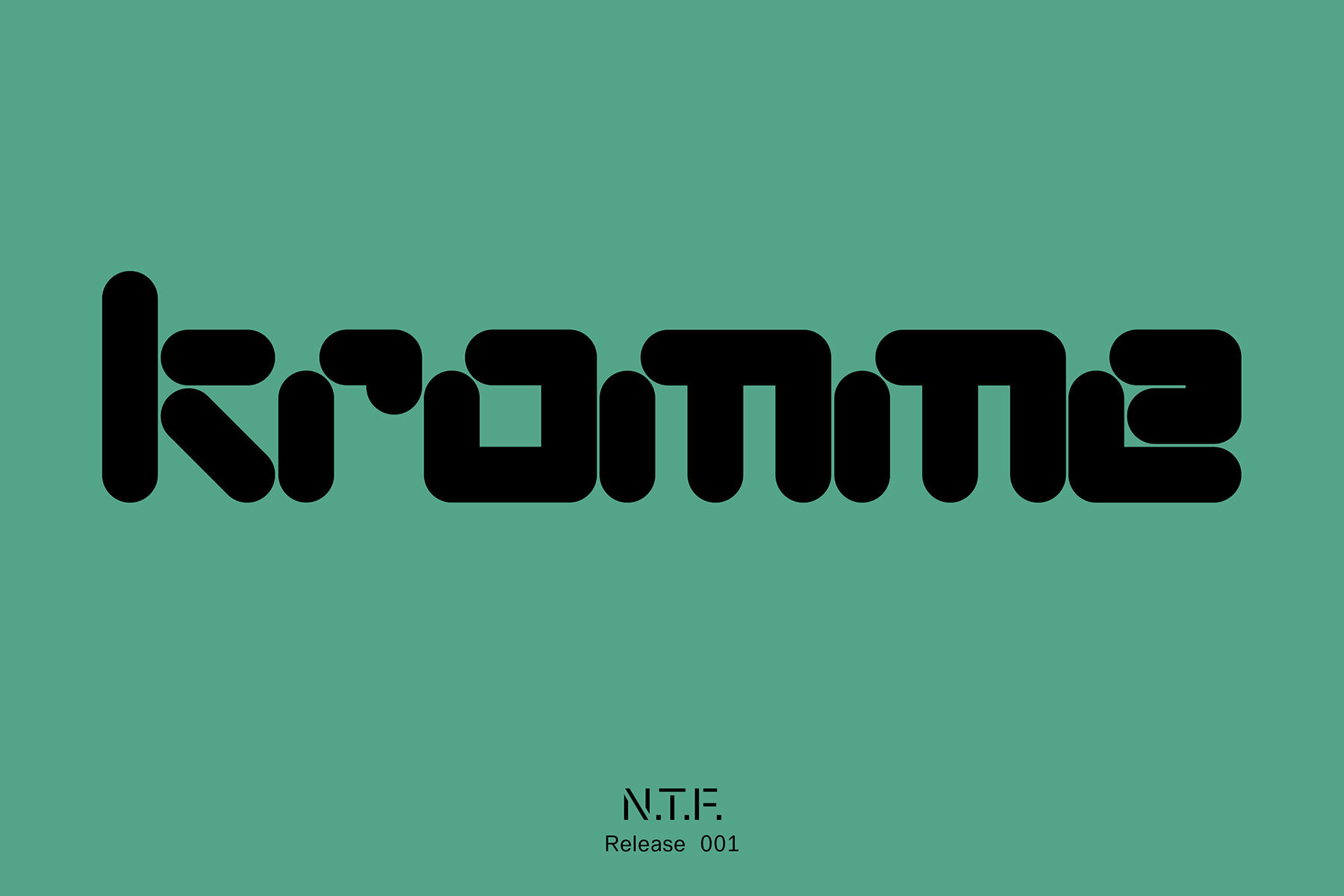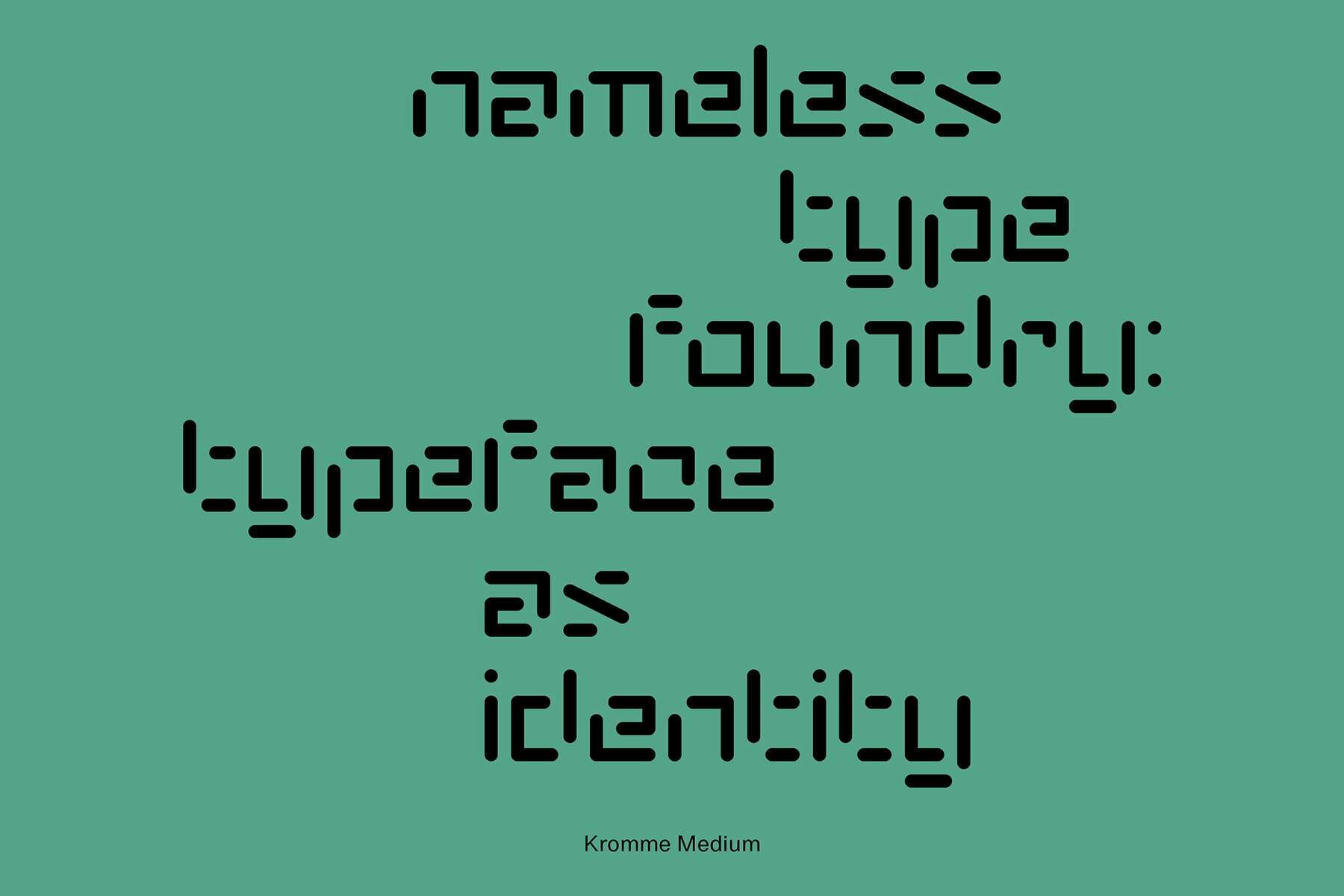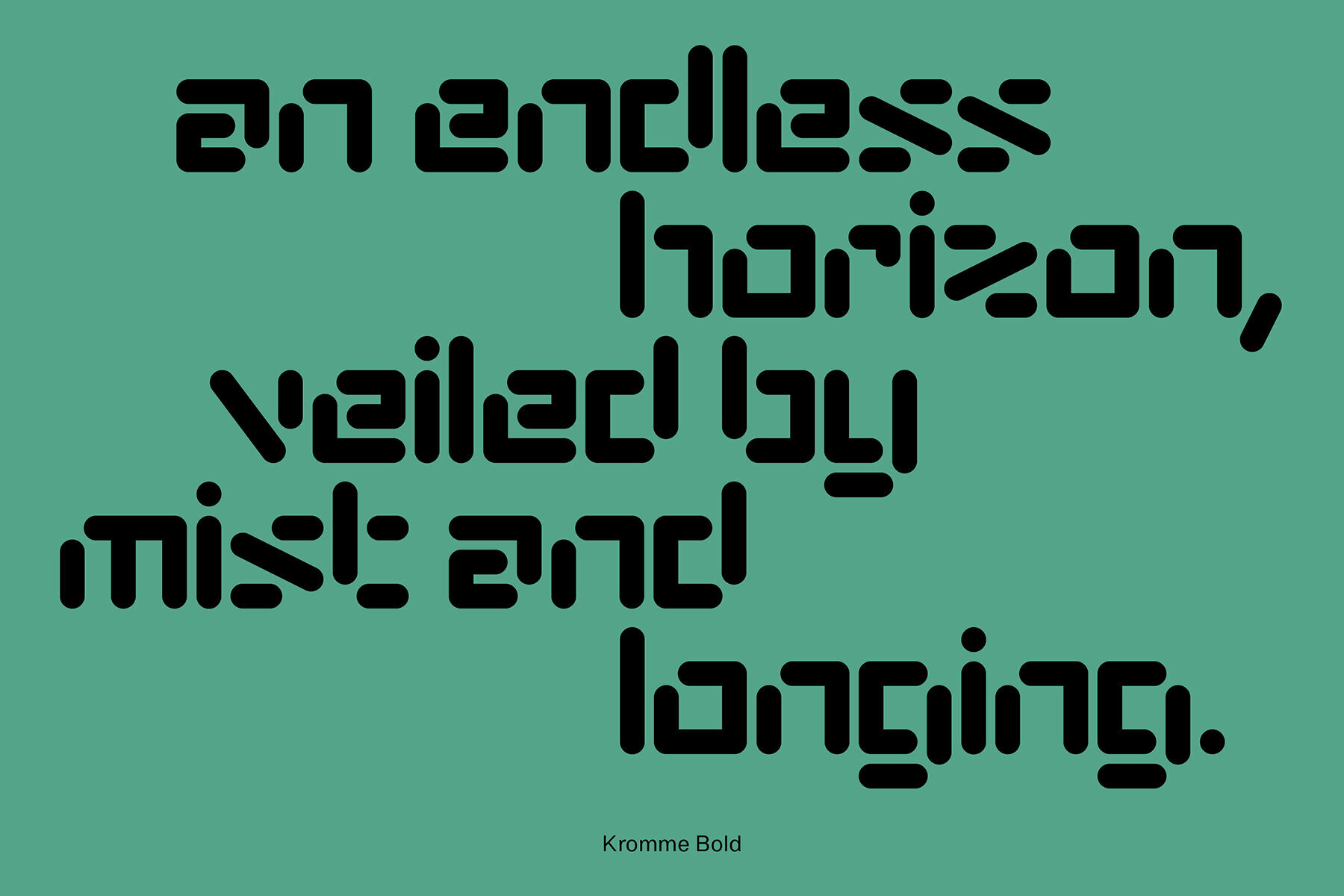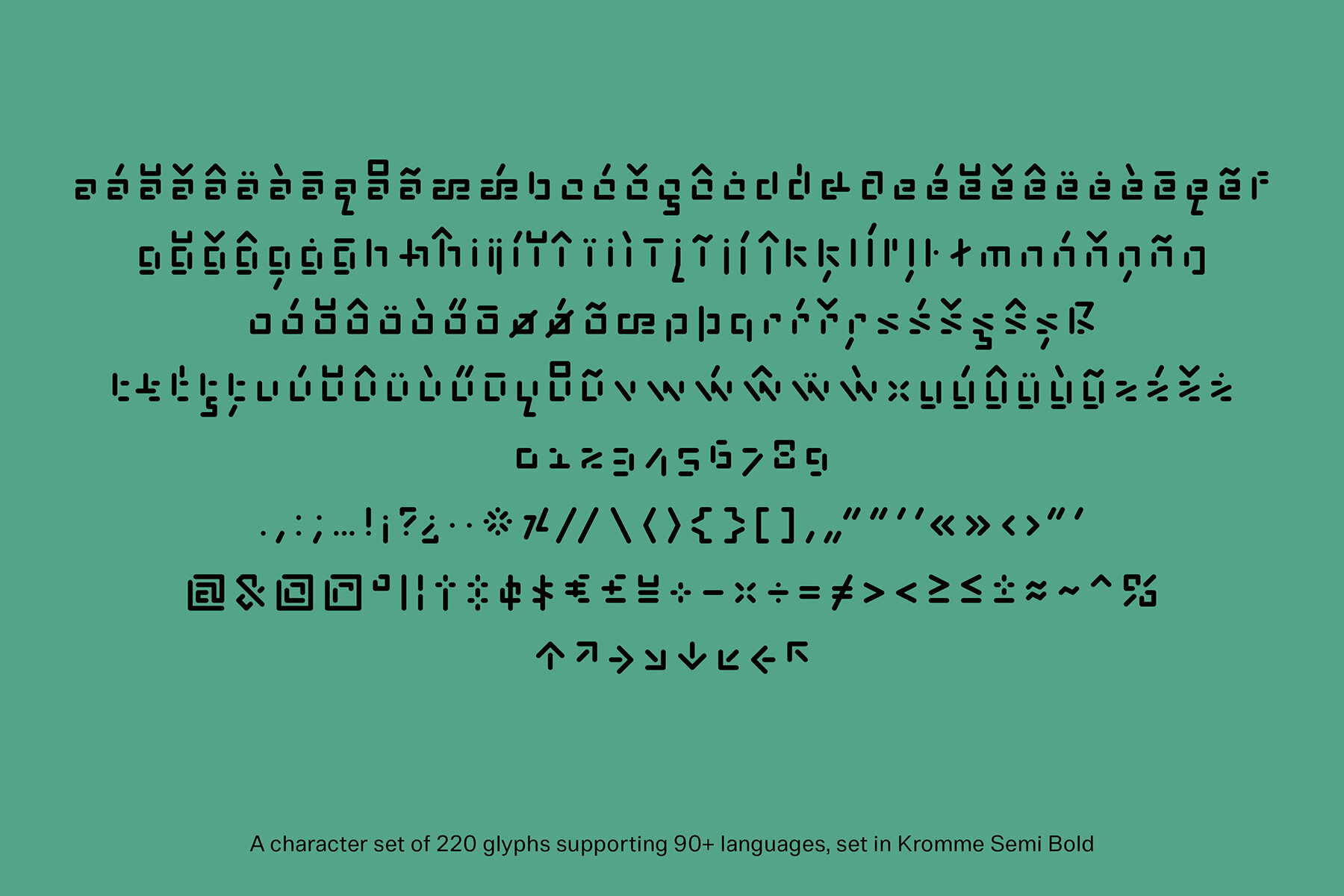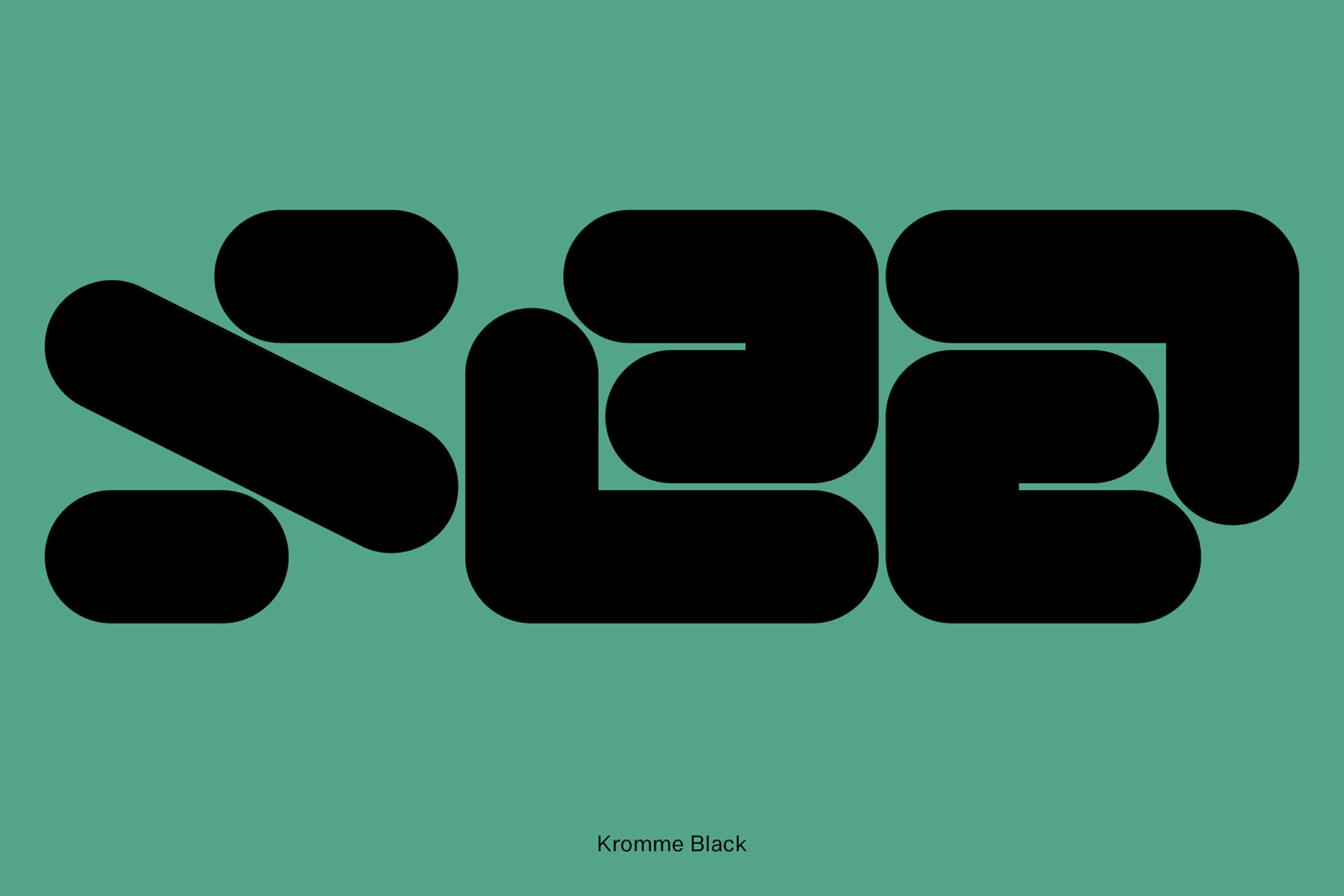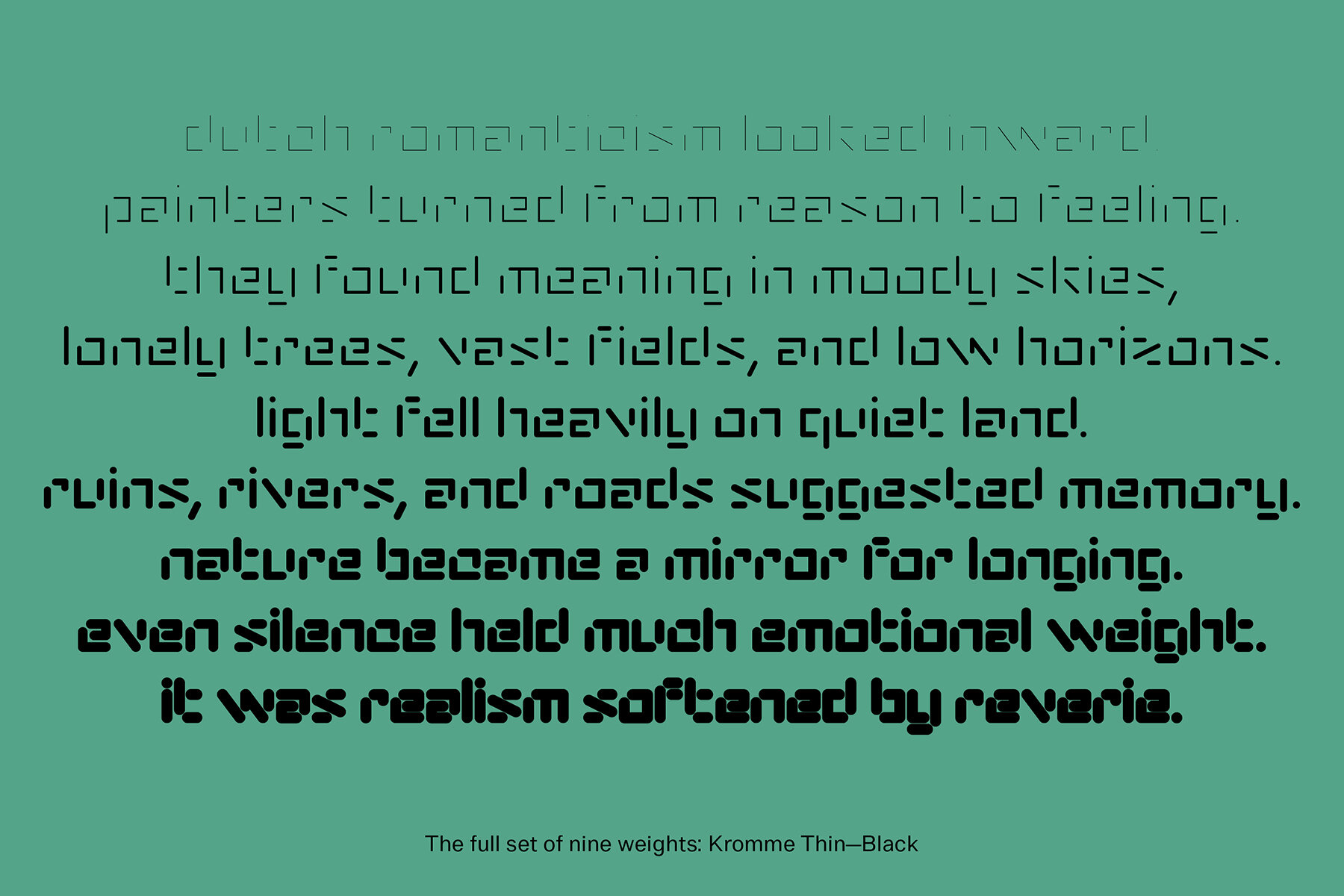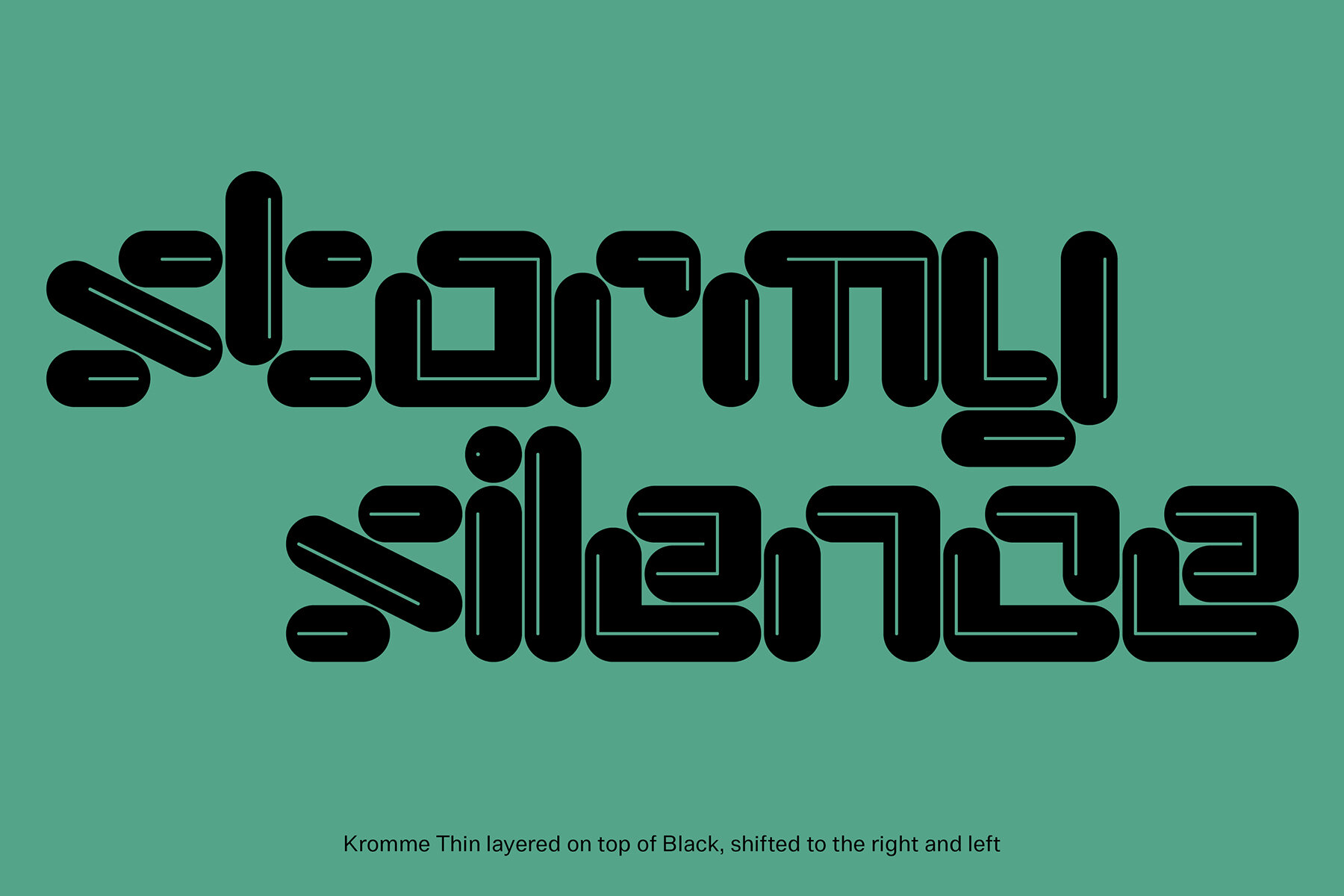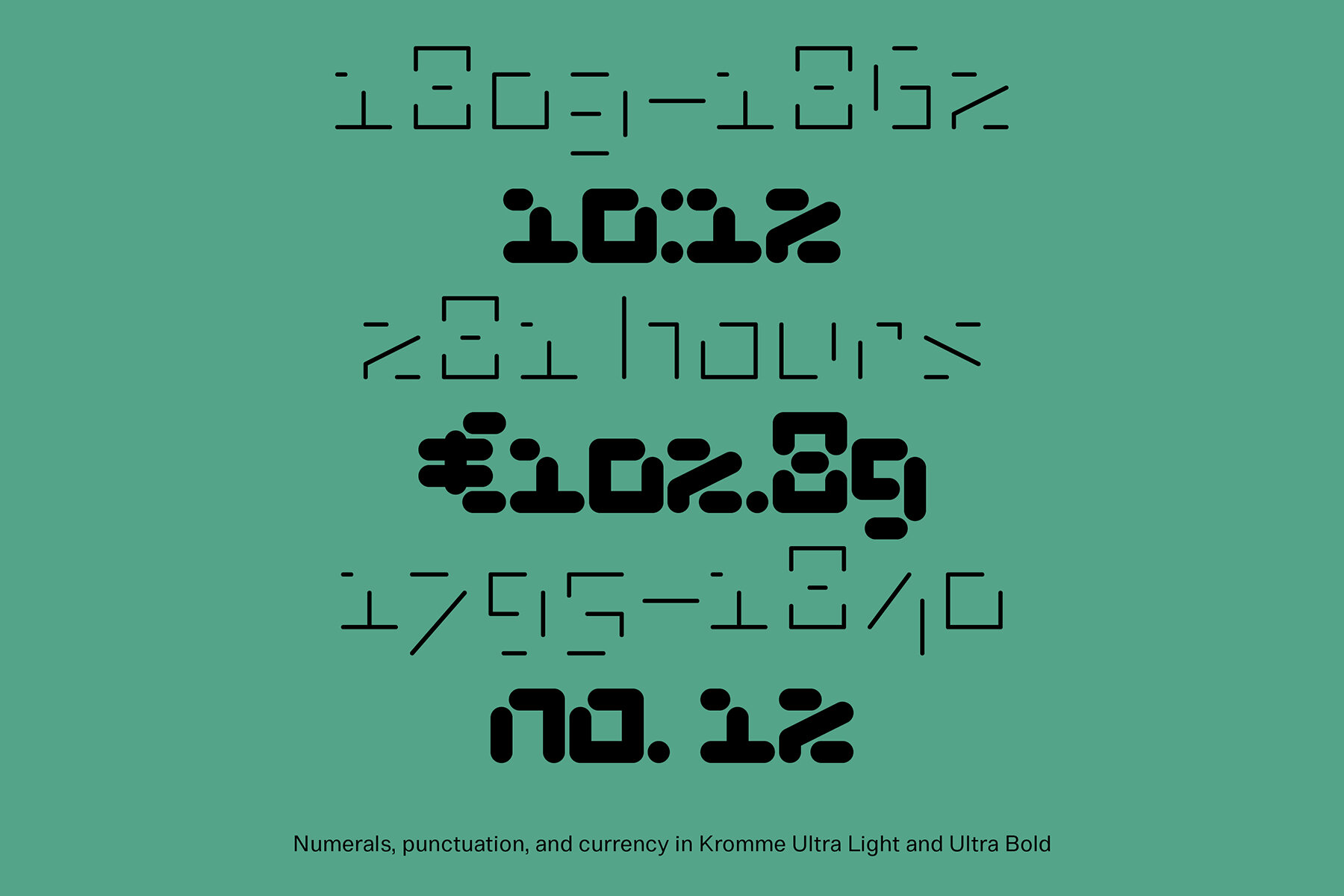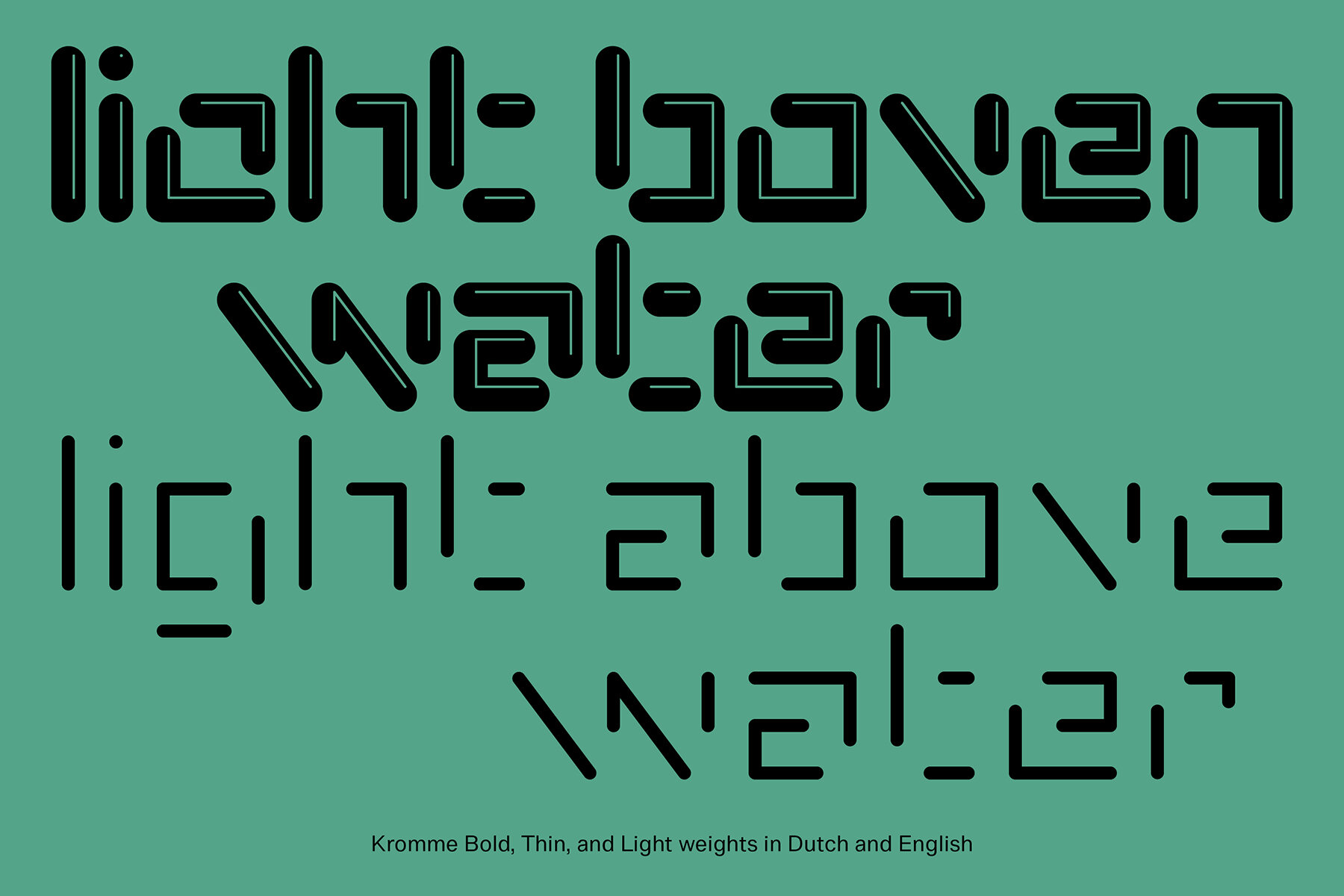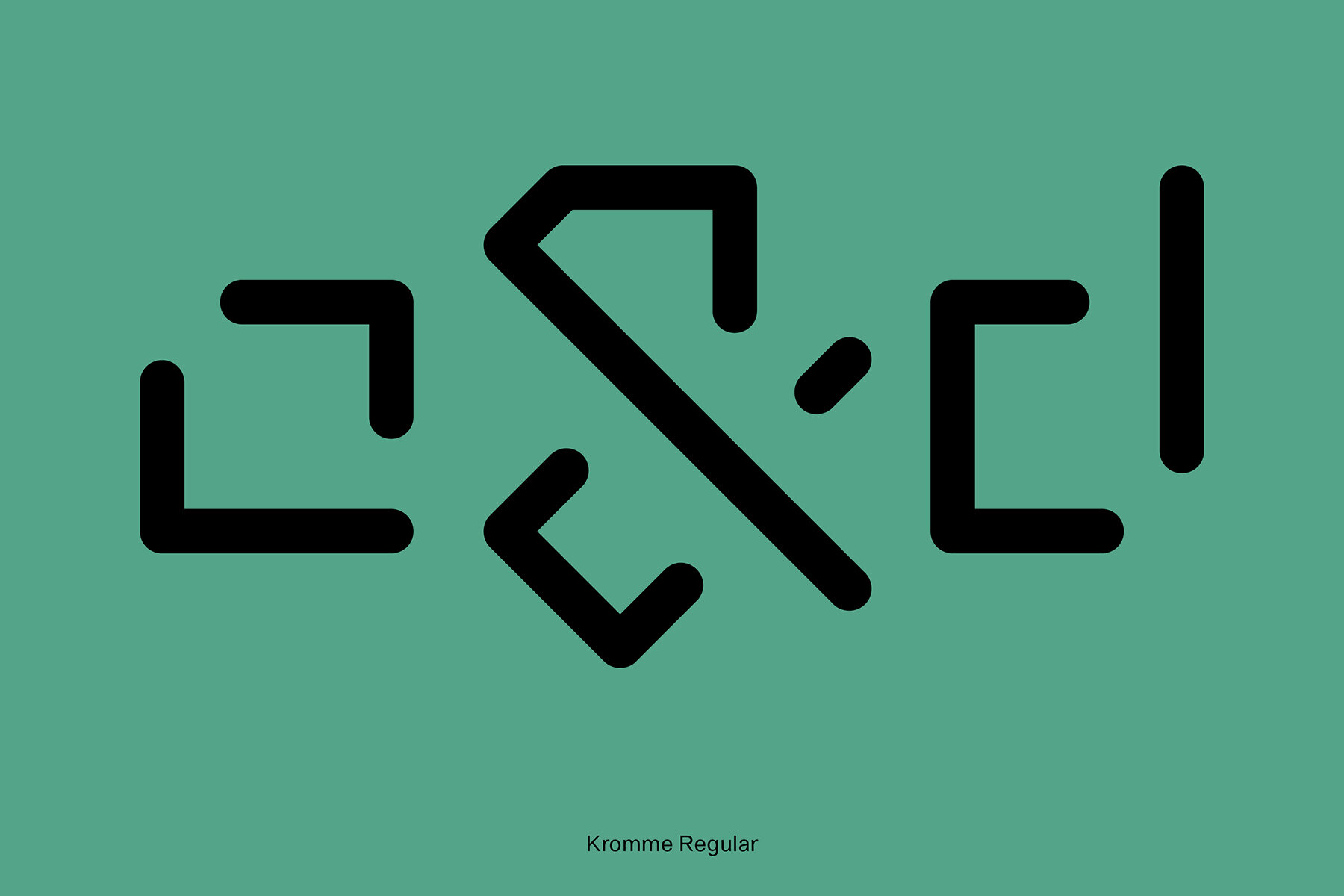
Kromme Font
Kromme is a proportional display typeface built on a modular stroke system. It comes in nine weights, from Thin to Black, making it especially effective for layered compositions and weight-based experimentation. Inspired by Dutch typographic systems and early graphic experimentation, Kromme is best used at larger sizes or wherever type takes on a decorative role. It has over 230 glyphs, supporting more than 90 languages.